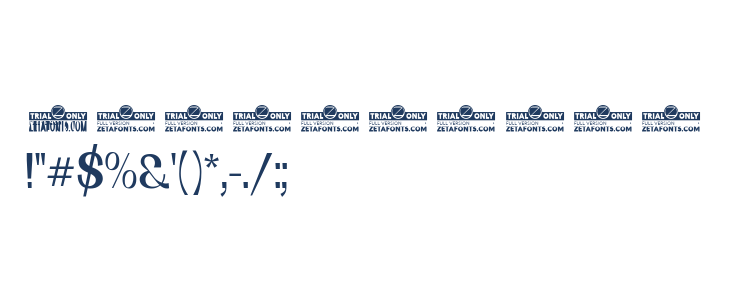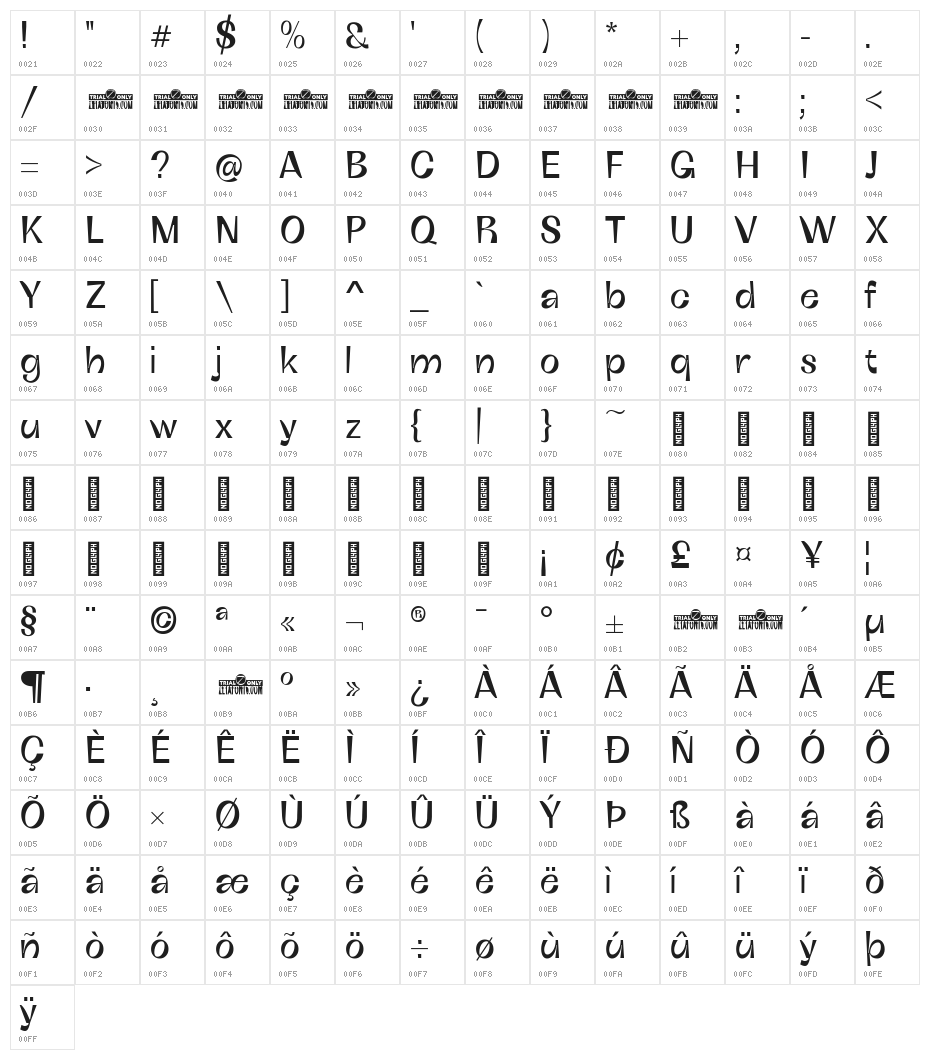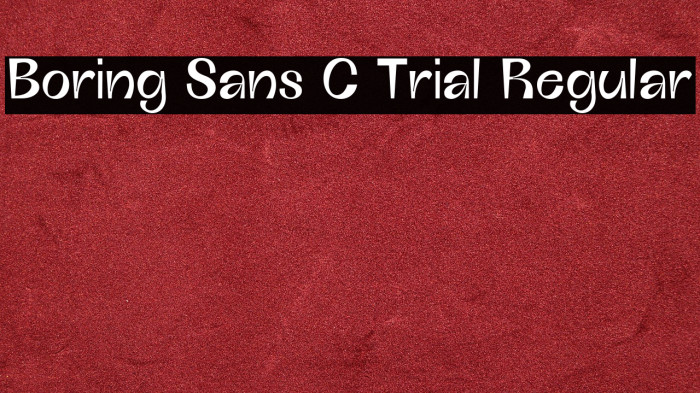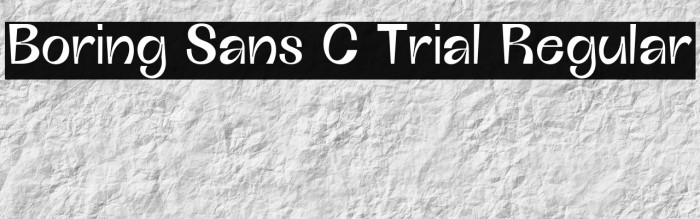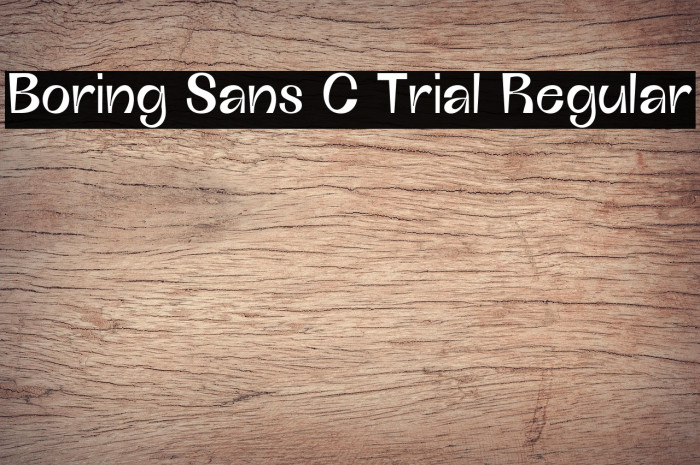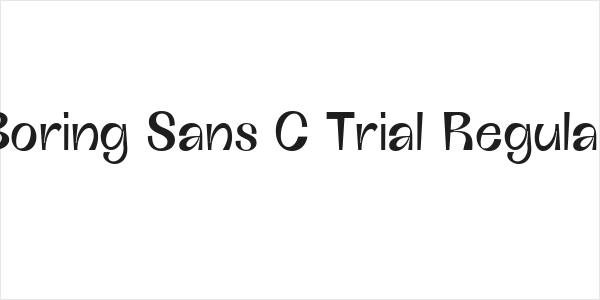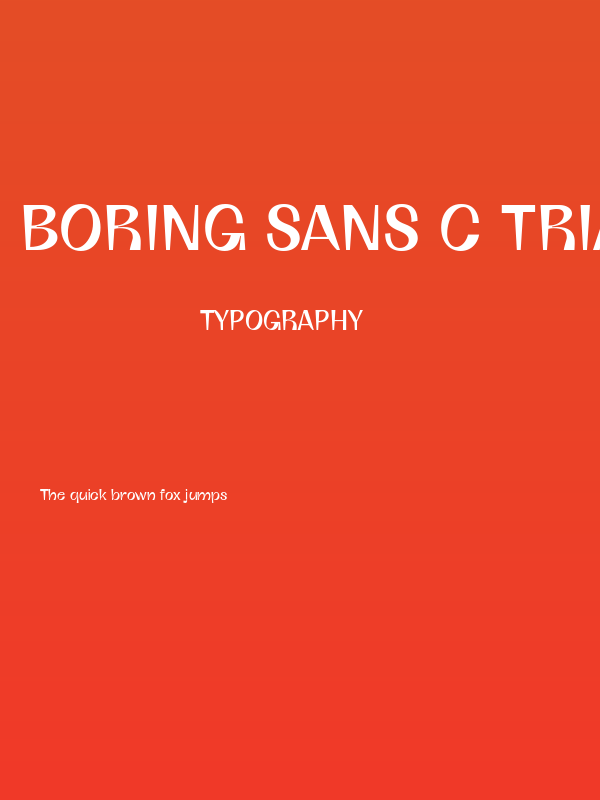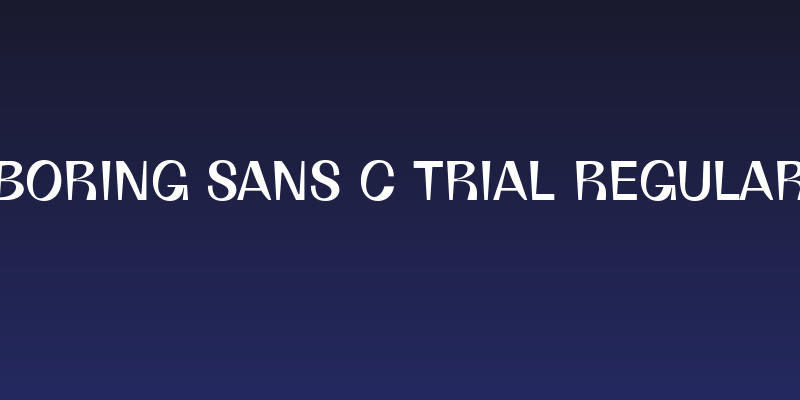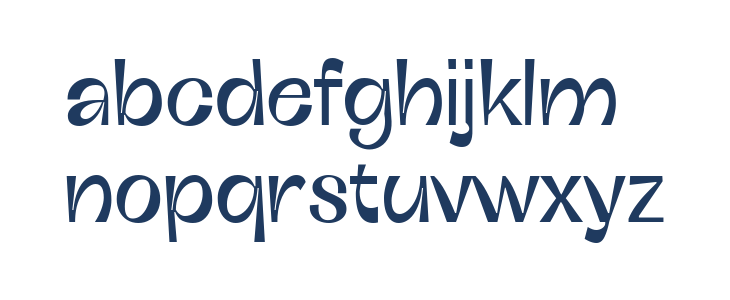
Boring Sans C Trial Regular Font
Boring Sans C Trial Regular Description
This font features a playful and quirky design, characterized by its unique and slightly irregular shapes. The uppercase letters have a bold presence with a slight slant, adding a dynamic feel. The lowercase letters maintain a consistent style, with rounded edges and a whimsical touch. The numerals and special characters are designed to match the overall playful aesthetic, making them suitable for creative and informal projects. The font's distinct personality makes it stand out, offering a fresh take on traditional sans-serif styles.
| Proposed Projects | Ideal for children's books, playful branding, creative posters, and informal invitations. |